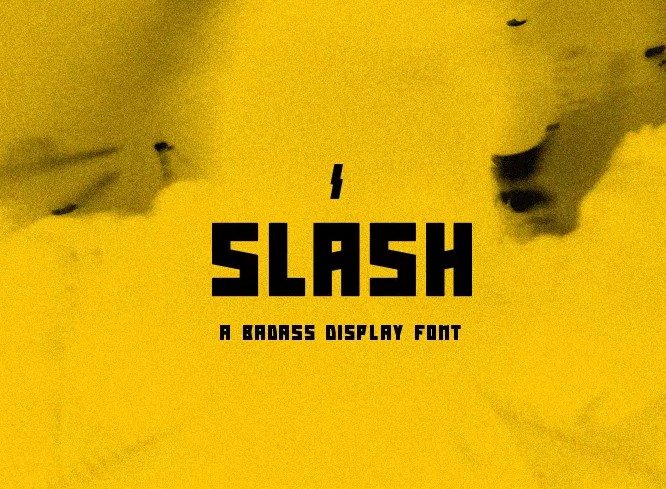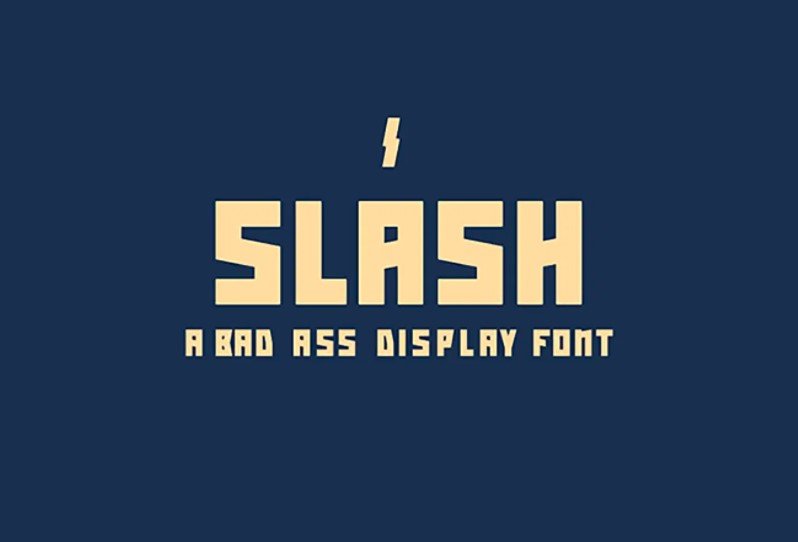
Hello, we are excited to introduce the stylish and highly intelligent typeface that boasts an impressive array of top-notch features. This is the Slash Display Font, characterized by its striking appearance and captivating attributes. It’s perfect for both your current and future design projects.
The great font is used by the graphic designer’s community to generate and developed one of the best works. It is full of attractive features, unique glyphs, and tons of incredible styles.
You can use this clean font for making typographic works as well as other graphic designs. It stays one of the top-notch typefaces because of its readability. You can use it as pairing with denmark handwritten font.
View Of Slash Display Font
You can check out its good-looking characters in the below image. It is full of rich attractivity, which will boost your design’s perfection. You can use it for all your work.
The Slash Display Font is a good-looking typeface that is great to use with droid sans font and appropriately suitable for making banners, posters, covers, and big designs for all types of screens. This is great for your youtube thumbnails and other works.